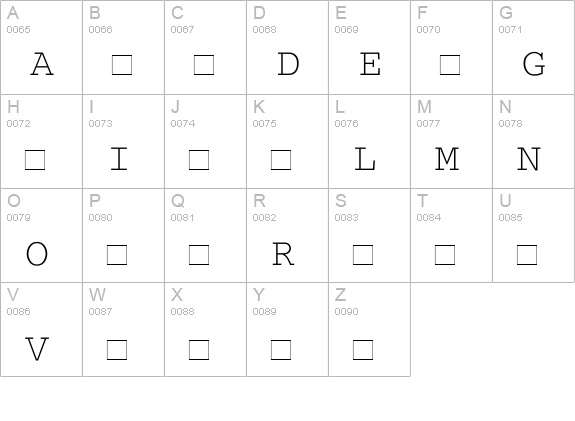
Steven123 Font Details
Introducing Steven123 font, a versatile and modern typeface that is sure to make your designs stand out. This unique font features sleek lines and a contemporary look that will add a touch of sophistication to any project. Whether you're working on a logo, website, or print design, Steven123 font is the perfect choice to bring your vision to life. What makes Steven123 font even better is that it is available for free download at FontsMarket.com. This means you can easily access this high-quality font without any cost, making it a fantastic option for designers on a budget. Don't miss out on the opportunity to elevate your designs with Steven123 font - download it now and see the difference it can make in your projects!